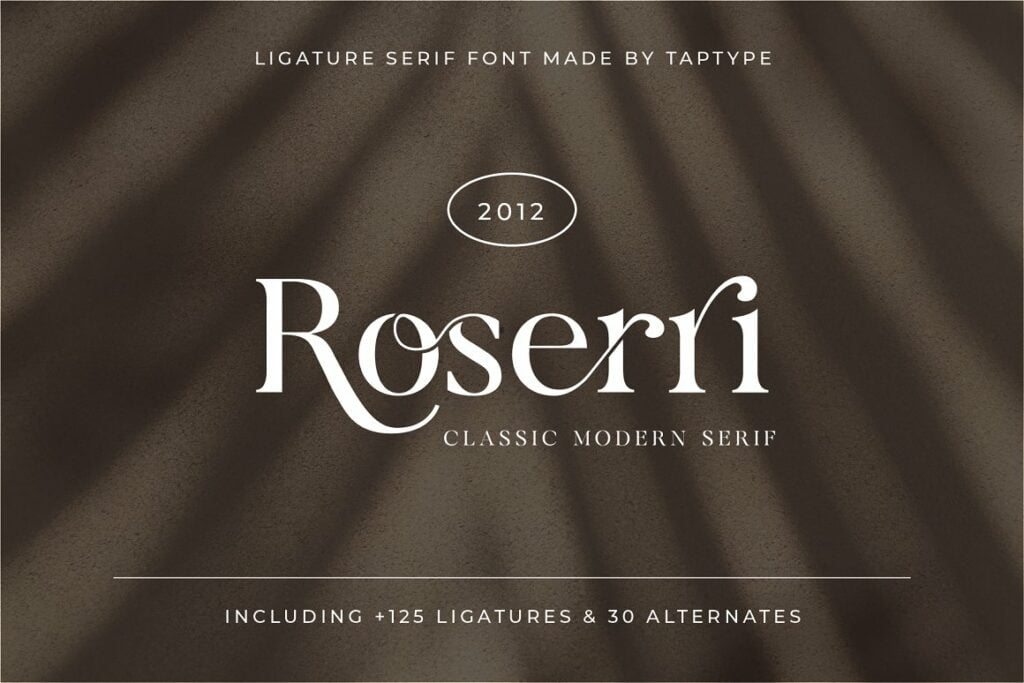
Roserri Font
Roserri Serif Font is a stylish modern font with ligature-rich Serif. Minimalist character that allowing you to easily edit the designs. It is perfect for branding, wedding invites and cards, and maybe for some project.